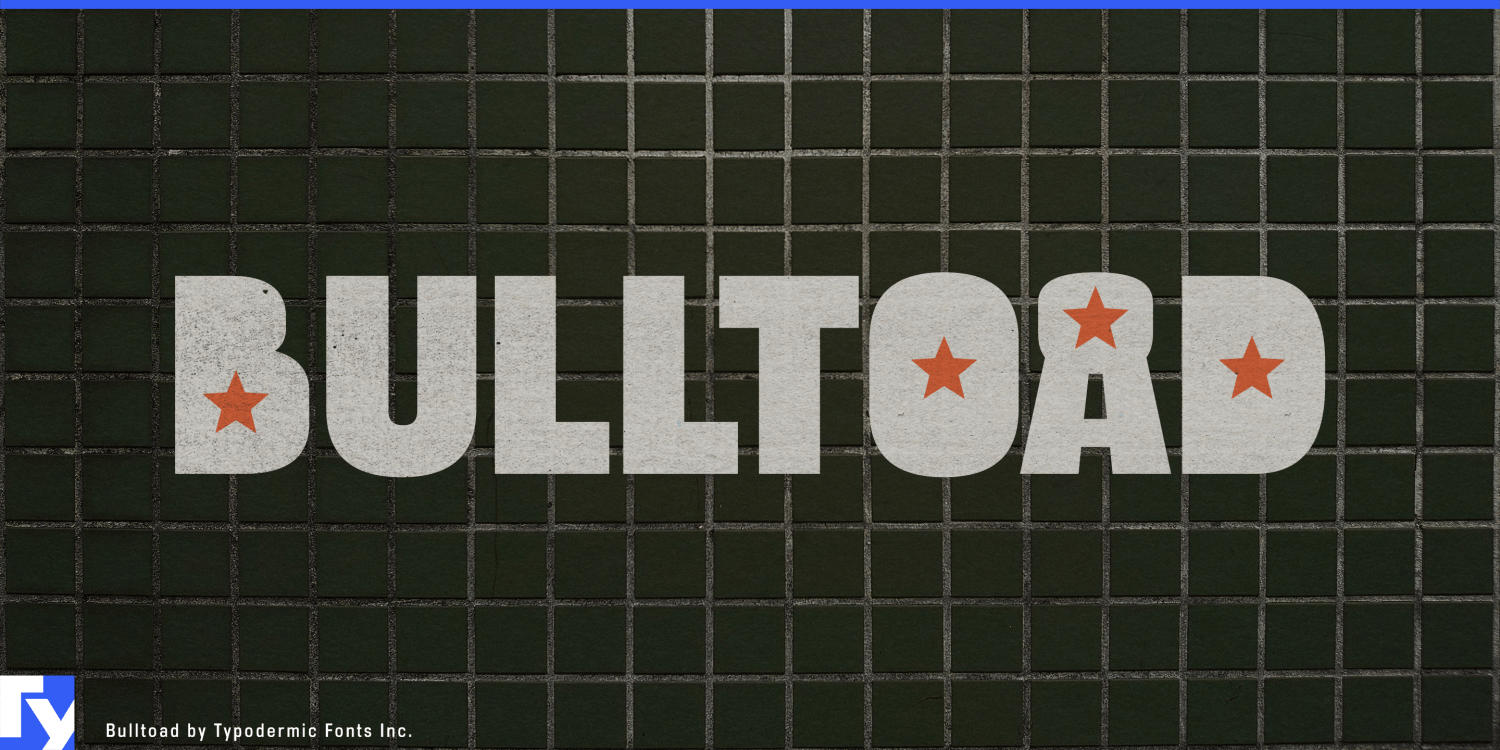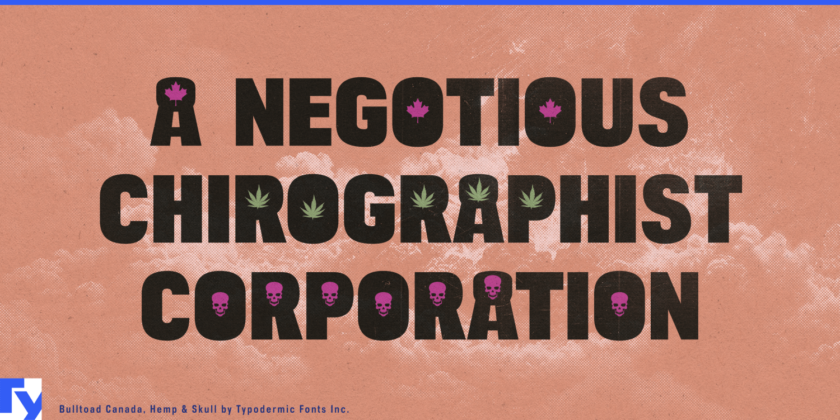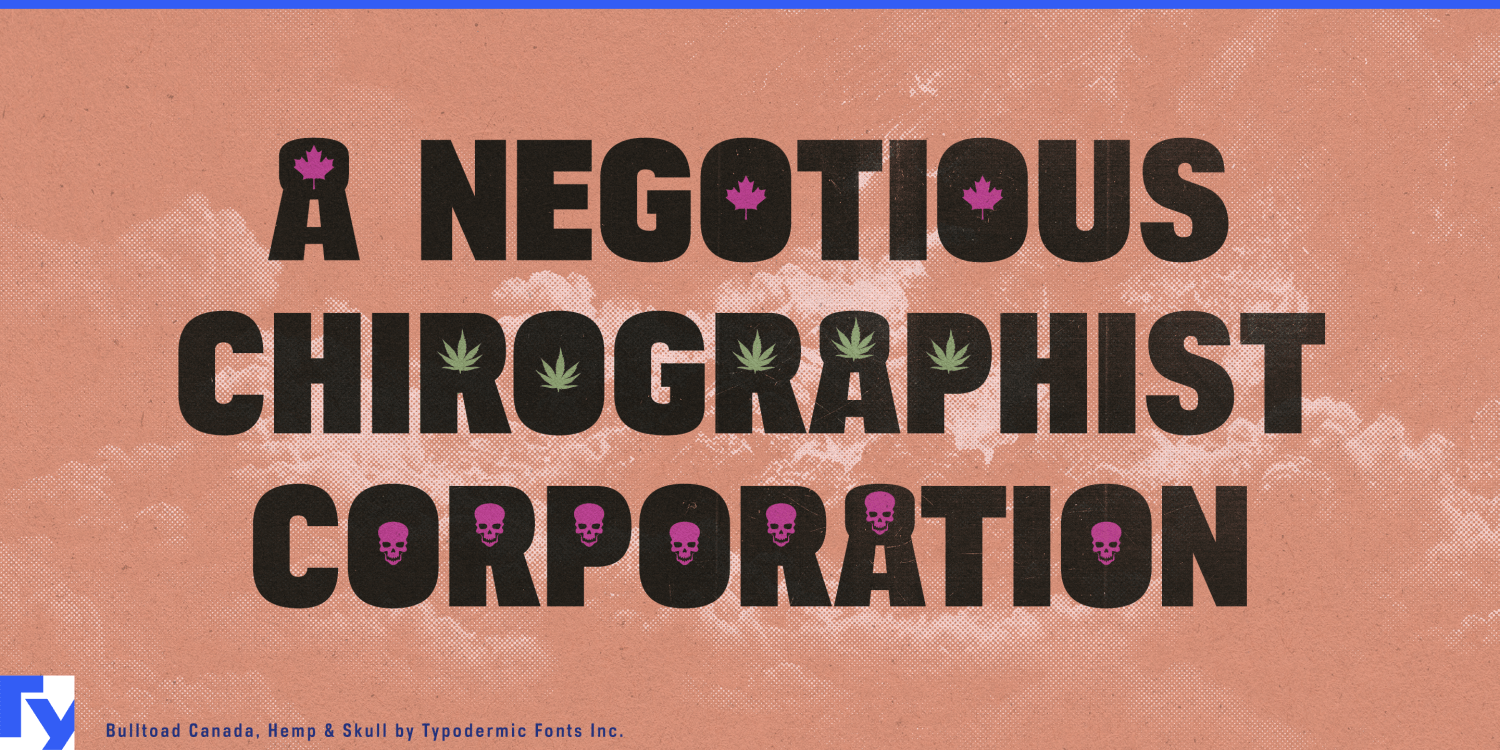
About Bulltoad
Dive into the whimsical world of Bulltoad, a typographic treasure trove that transforms ordinary letters into extraordinary vehicles of expression. This eclectic font family doesn’t just offer characters—it presents a vibrant alphabet of ideas,…